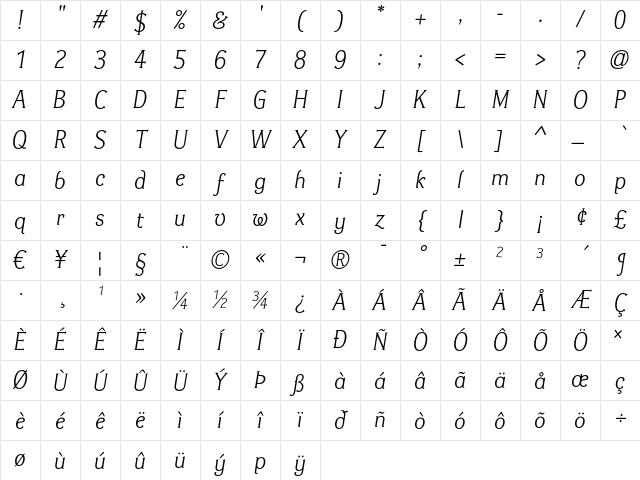
Ideal Gothic Italic
Design Context for Ideal Gothic
Ideal Gothic takes a clean, functional approach - its unadorned letterforms prioritise legibility and work reliably across screen and print environments. The slanted form adds forward momentum and visual energy.
Font Pairing: Works well alongside a characterful serif or display font that can carry the expressive load while Ideal Gothic handles the functional copy.
Pro Tip: Use Ideal Gothic for UI labels, navigation, and short-form body copy where clean legibility is the priority.